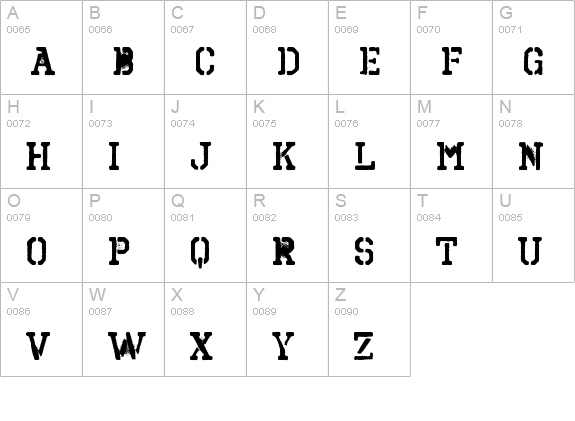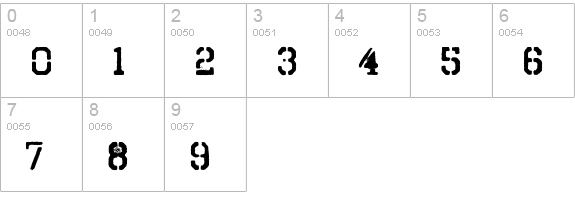
Octin Spraypaint B Rg Bold Font Details
Octin Spraypaint B Rg Bold is a strong, high-contrast variant in the Octin typeface family \xE2\x80\x94 well suited to headlines, attention-grabbing titles, and strong calls-to-action.
Octin Spraypaint B Rg Bold font is a bold and eye-catching typeface that exudes a sense of urban edginess and modernity. Its thick and rugged characters make a strong statement, perfect for adding a dynamic touch to any design project. This font is ideal for creating posters, signage, branding materials, and more. The best part is that Octin Spraypaint B Rg Bold font is available for free download at FontsMarket.com. Take advantage of this amazing offer and elevate your designs with this striking typeface today!